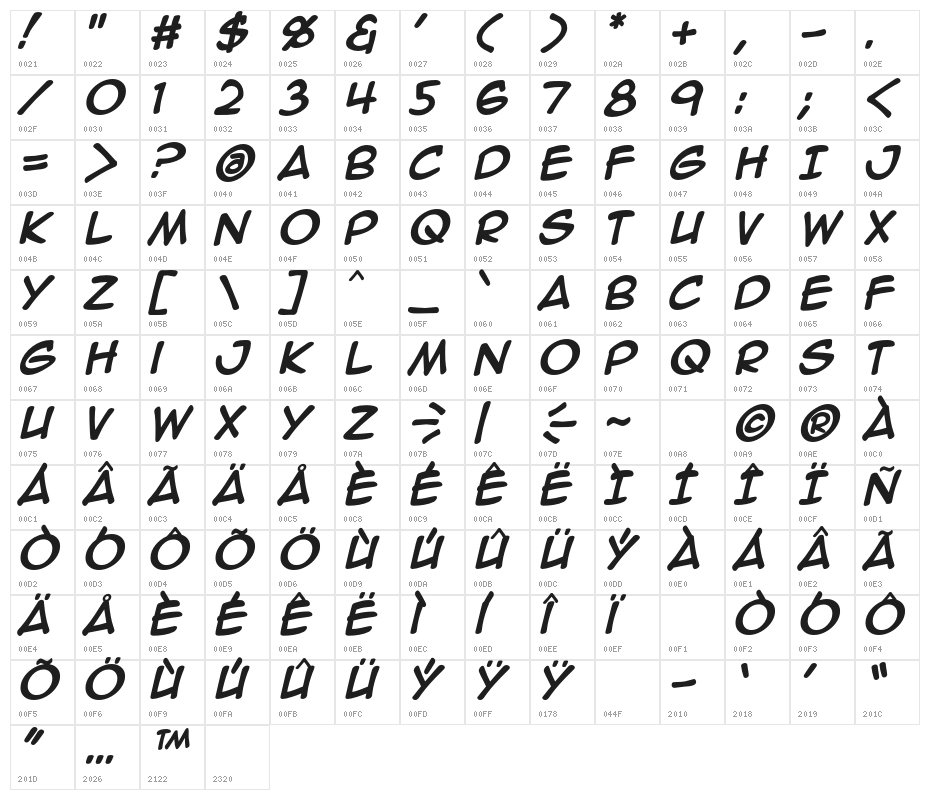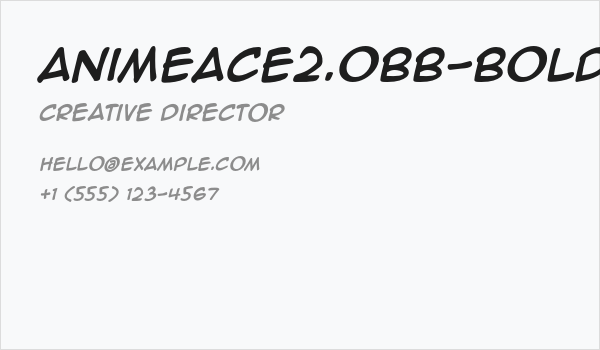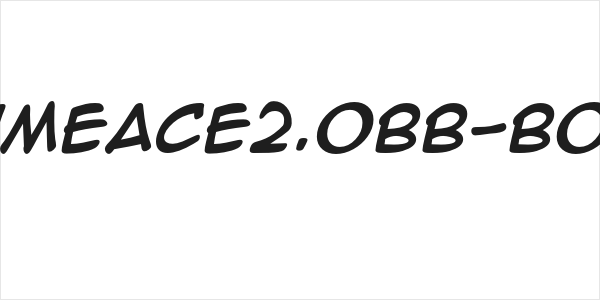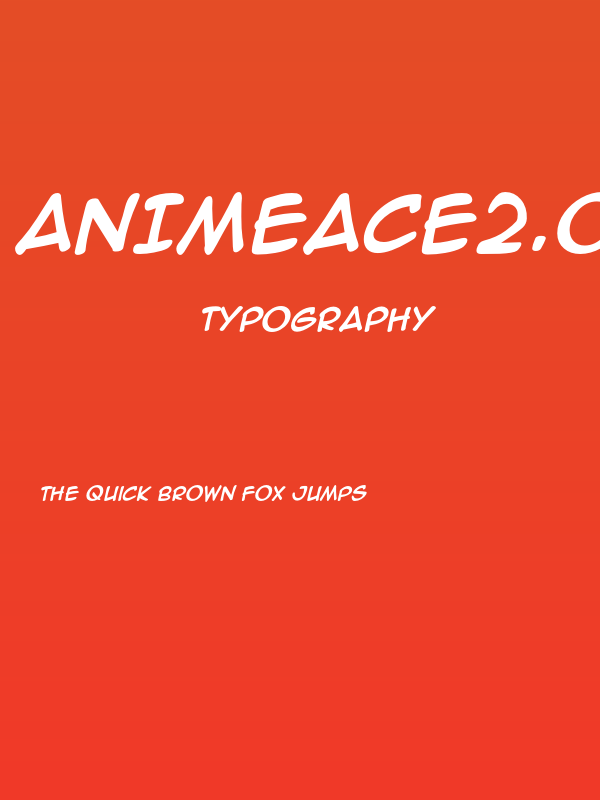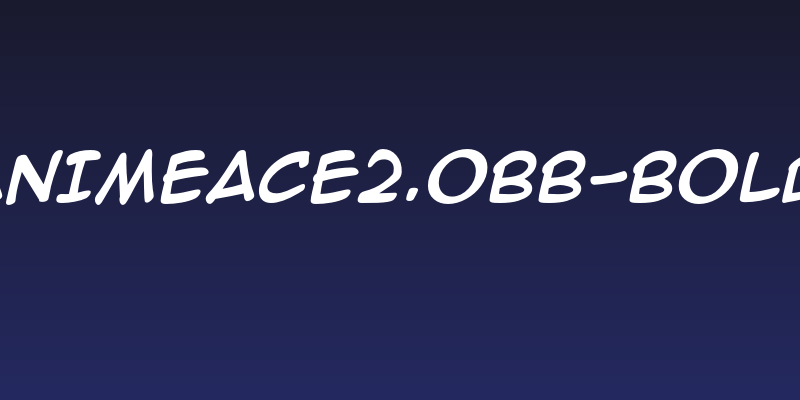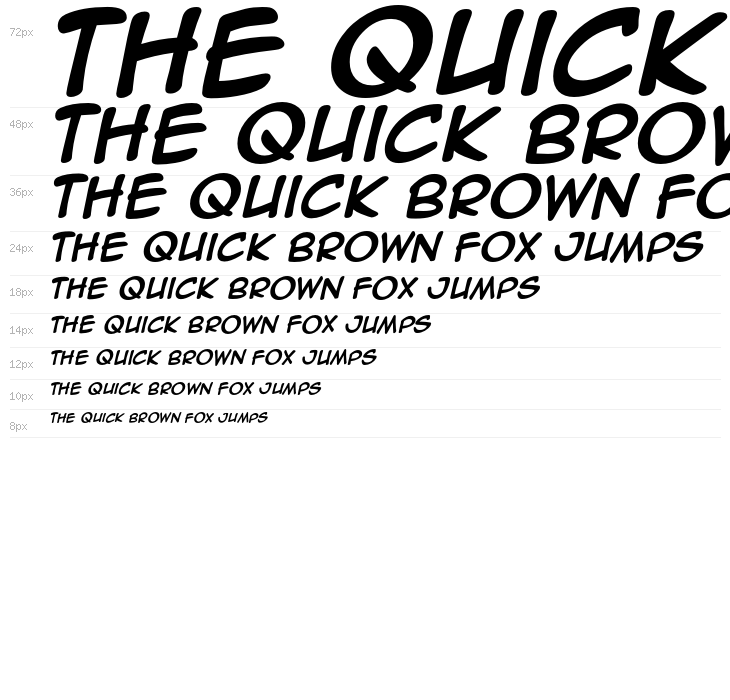
AnimeAce2.0BB-Bold Font
AnimeAce2.0BB-Bold Description
This font features a bold, playful style with a handwritten appearance. The characters are slightly slanted, giving a dynamic and energetic feel. The strokes are consistent in thickness, providing a uniform look across all characters. The rounded edges and smooth curves contribute to its friendly and approachable aesthetic. This font is versatile, suitable for a variety of creative projects that require a casual and informal tone.
| Use Case | Headlines, Logos, Informal text |
| Proposed Projects | Comic books, children's books, playful branding, casual invitations, and social media graphics. |